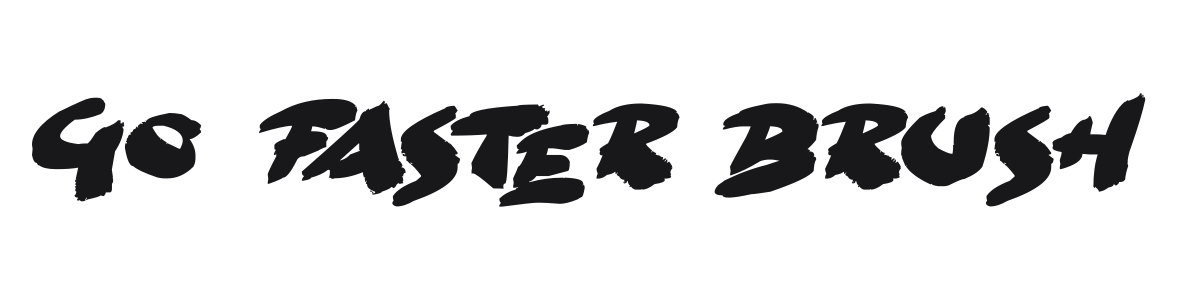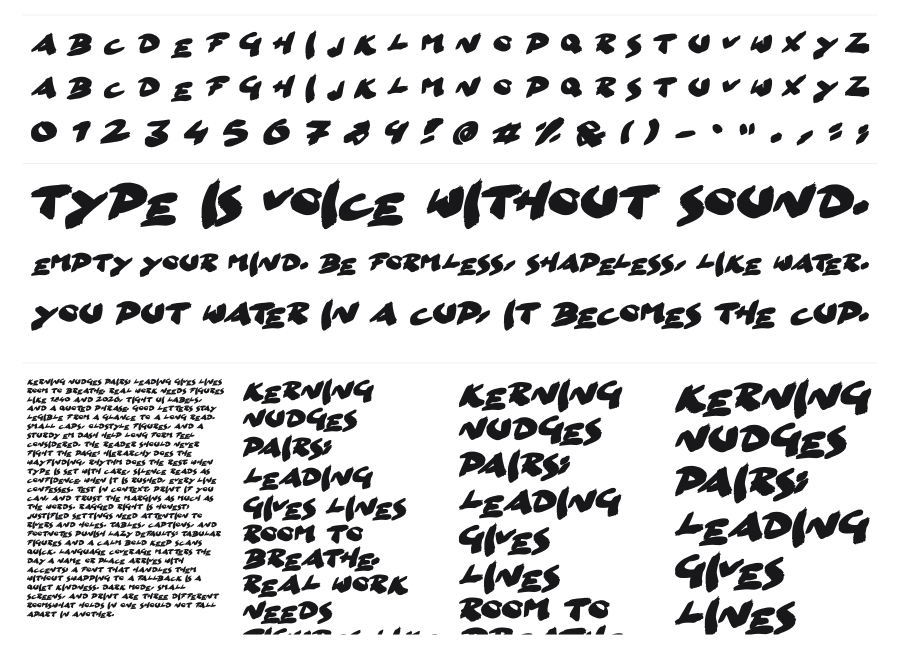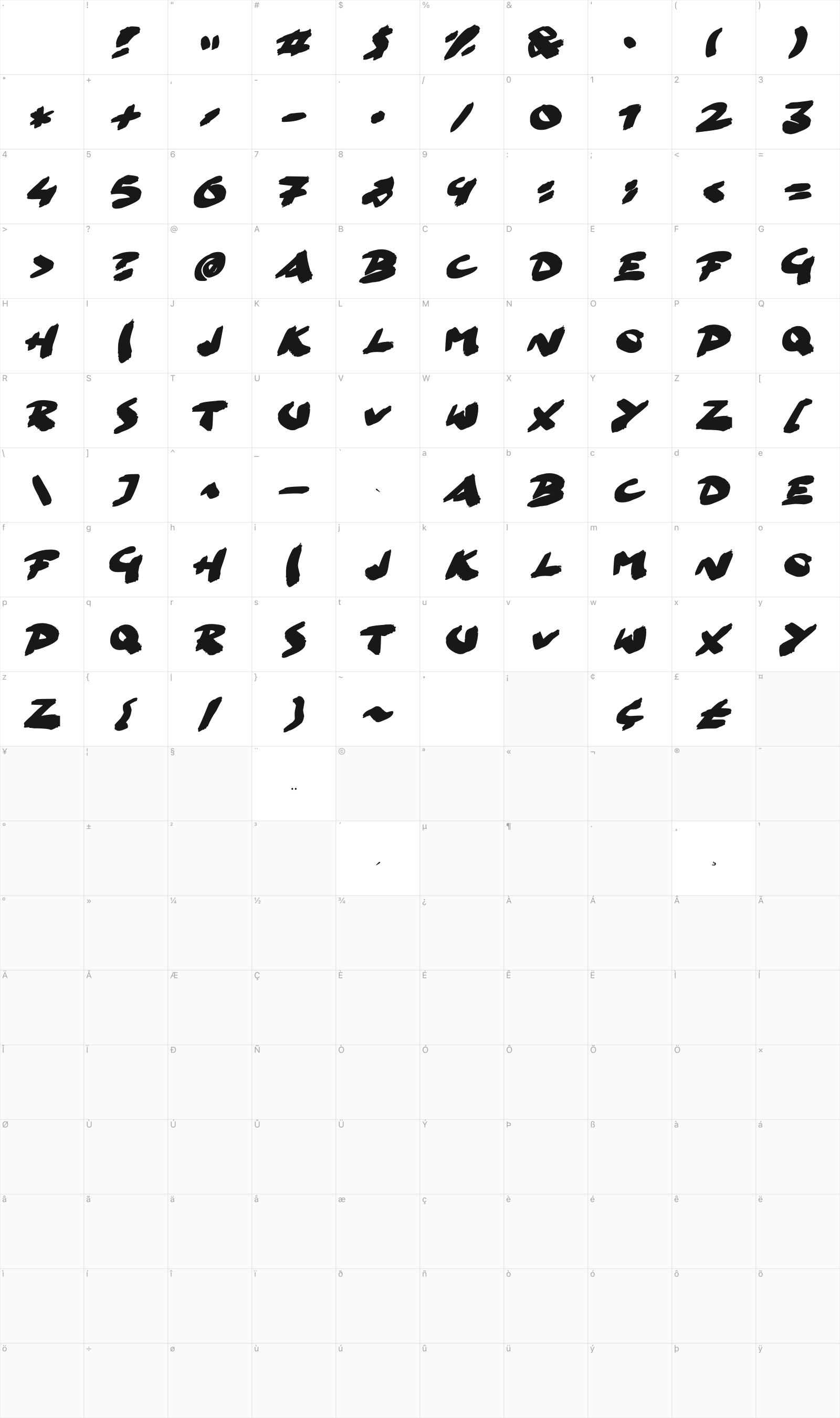
Go Faster Brush
Go Faster Brush is a heavily slanted brush script that looks like it was painted in a single furious motion. Rough, bristling stroke edges and dramatic forward lean give it an unmistakable sense of speed and urgency. It works best at large sizes where the texture and energy read clearly.